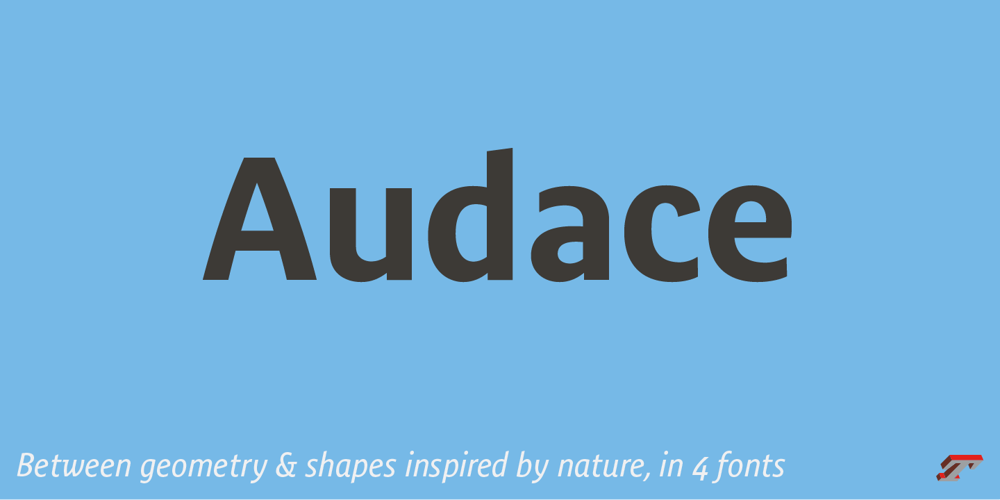
Audace Std Font Family was designed by Jean François Porchez and published by Typofonderie. Audace Std contains 4 styles and family package options. Between geometry & shapes inspired by nature, in 4 fontsAudace was born as a response to a simple brief: how to visually express human interaction and technology with abstract forms? The starting point is a humanistic sanserif, to which are added external references: design pieces, furniture, buildings. Architects shape our world with the intention to reconnect nature, human and address a perfect functionality. Not so far to typeface design which combines a personal vision and ensures good legibility in a certain context.Audace — like the works of those artists, designers, architects — is clearly influenced by the tension of the line, the play with negative space, the dynamics, the surprise, the nature that will influence the shapes of the letters. So if a v is asymmetrical, and the y based on similar asymmetry but in reverse, these two shapes help to distinguish from one to the other. This is a consequence of the influence of forms from design and art in the design of the Audace. And this small example illustrates the confrontations of the designer’s influences: the search for the most unique shapes, but without compromising on function: to be read, to be legible, even at very small size in the worst conditions.Audace, between geometry and shapes inspired by nature